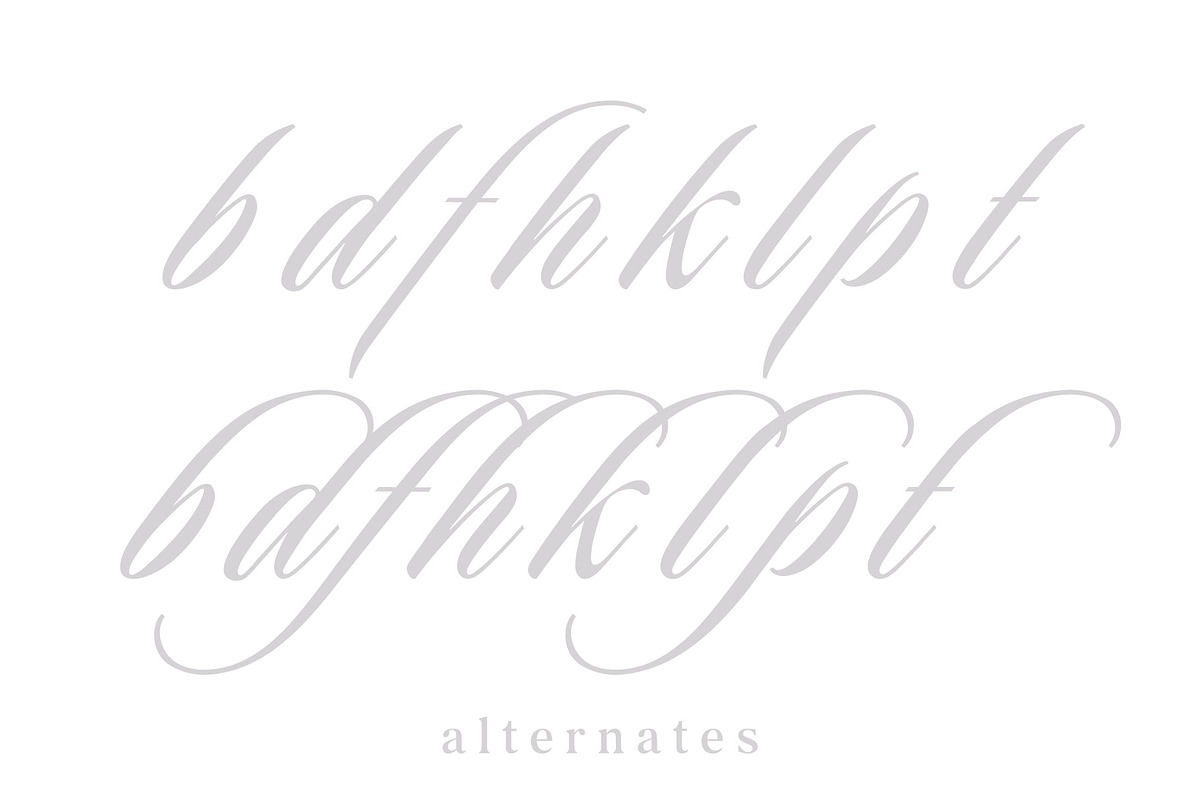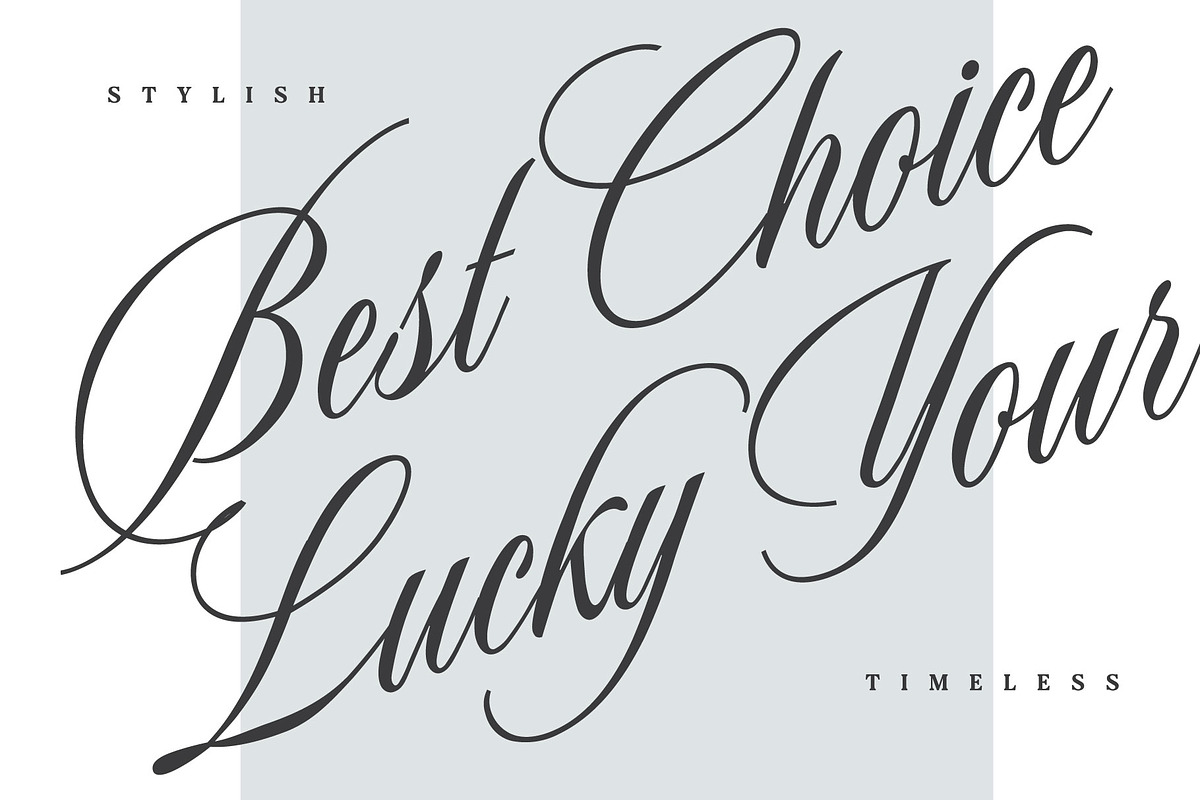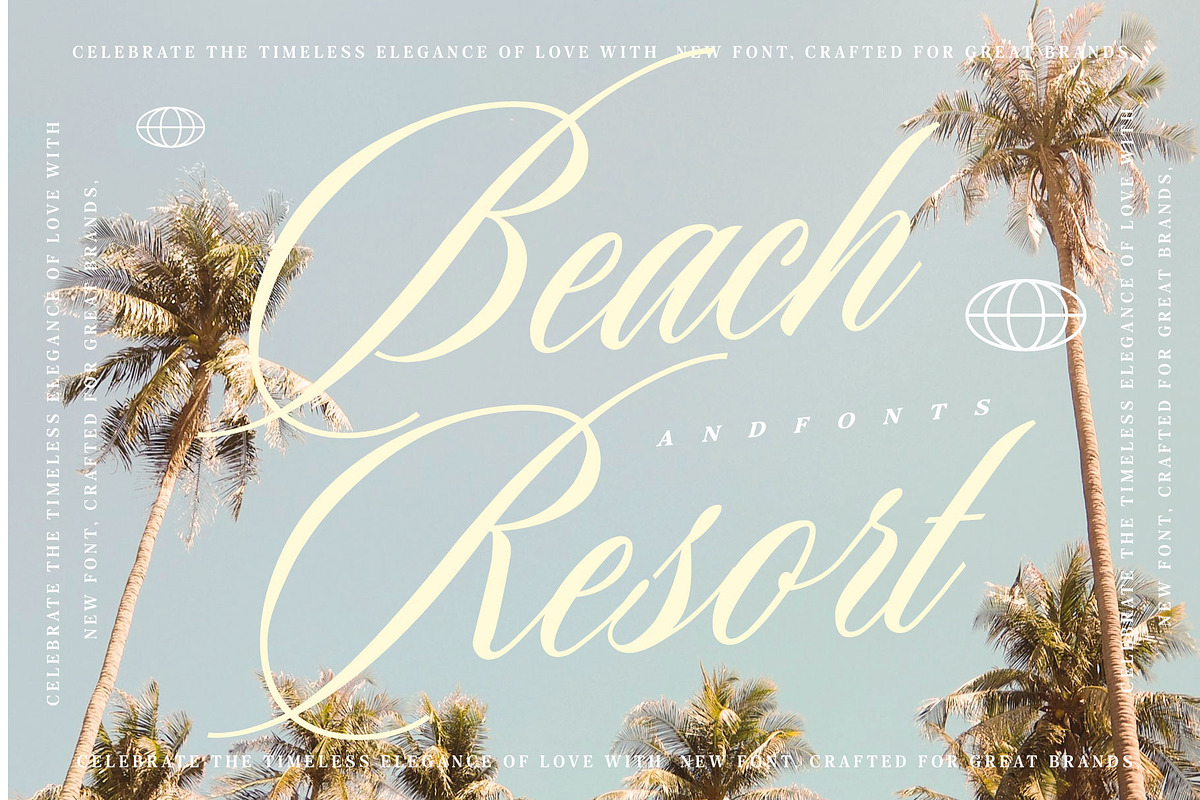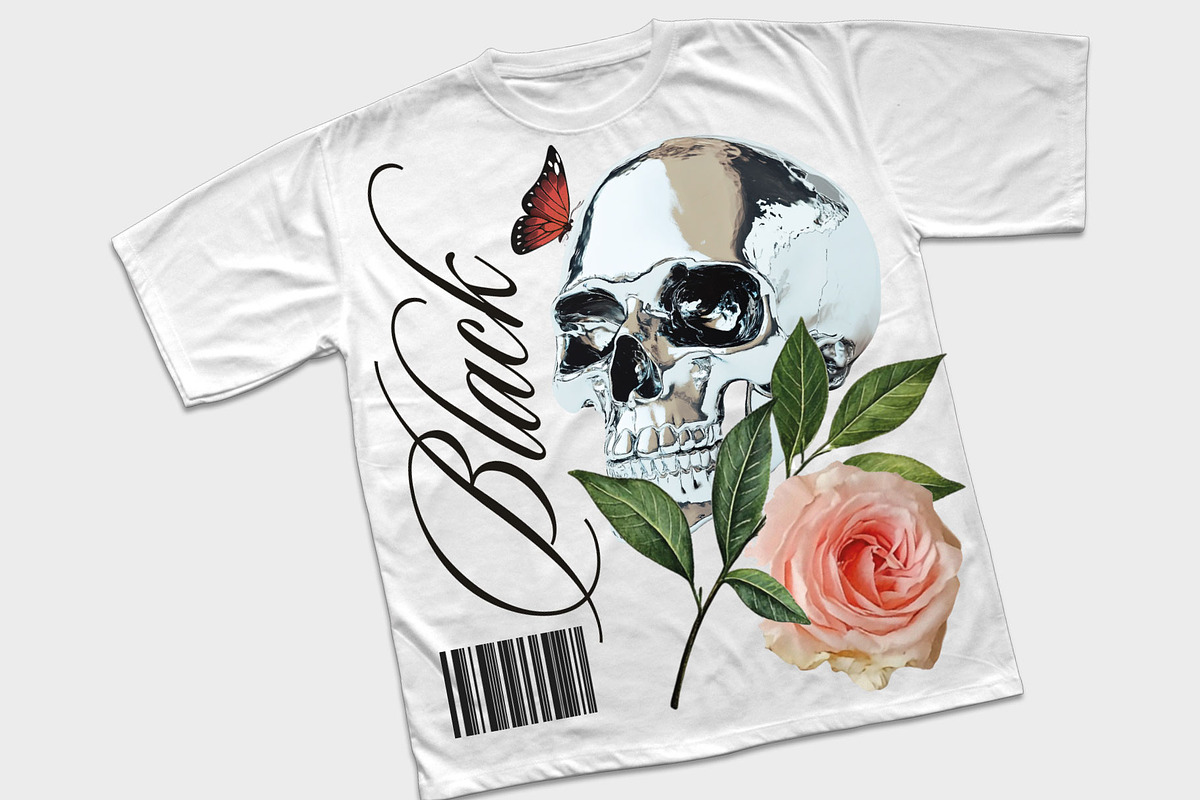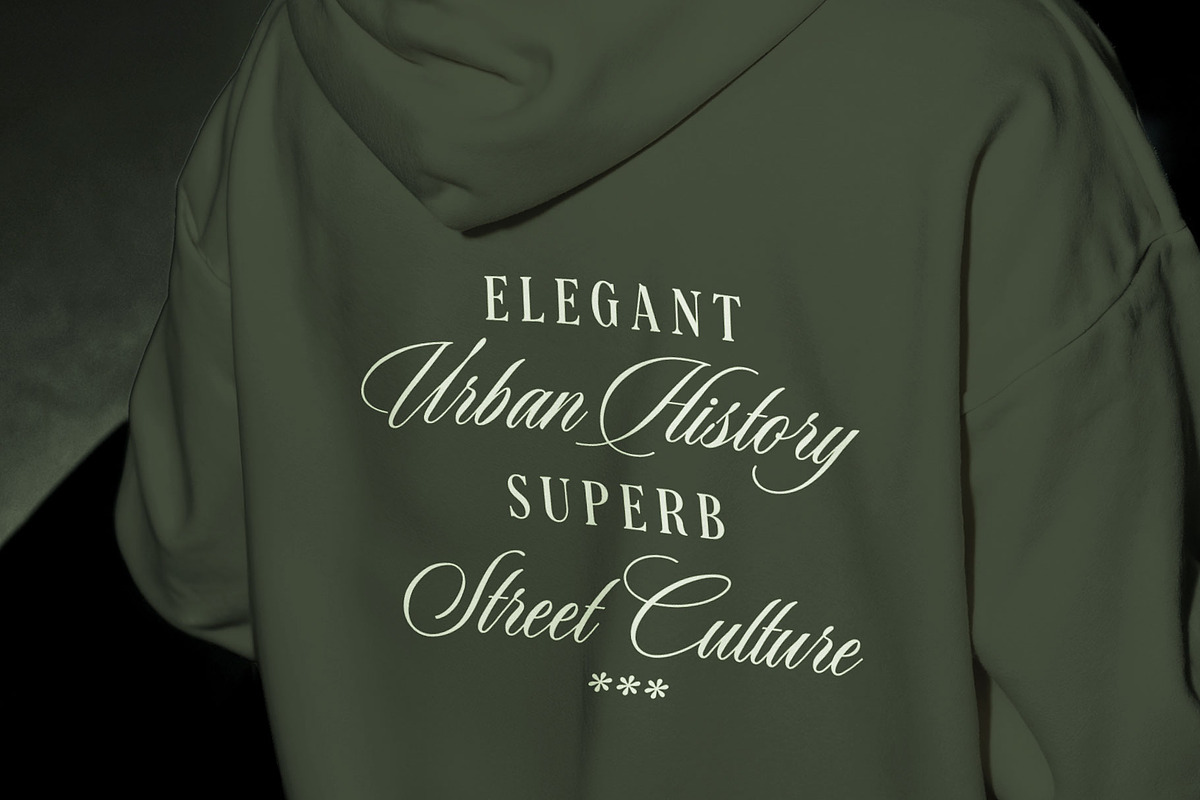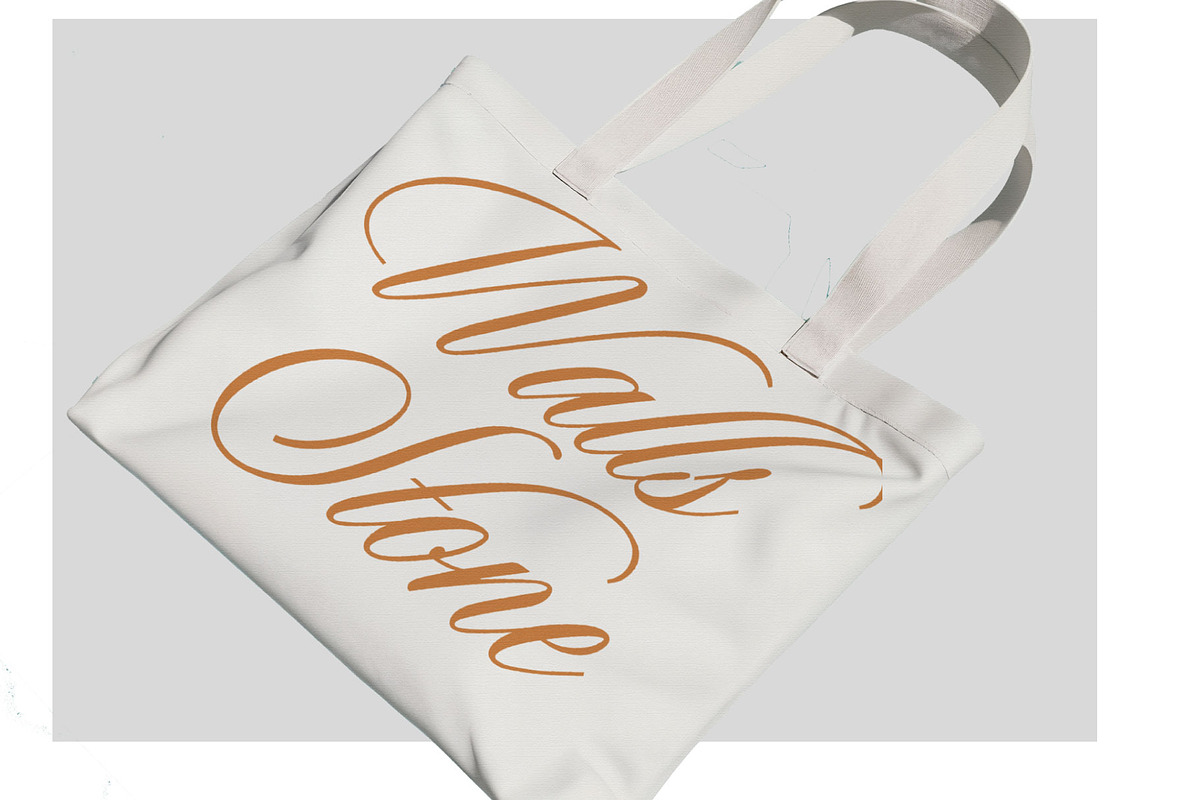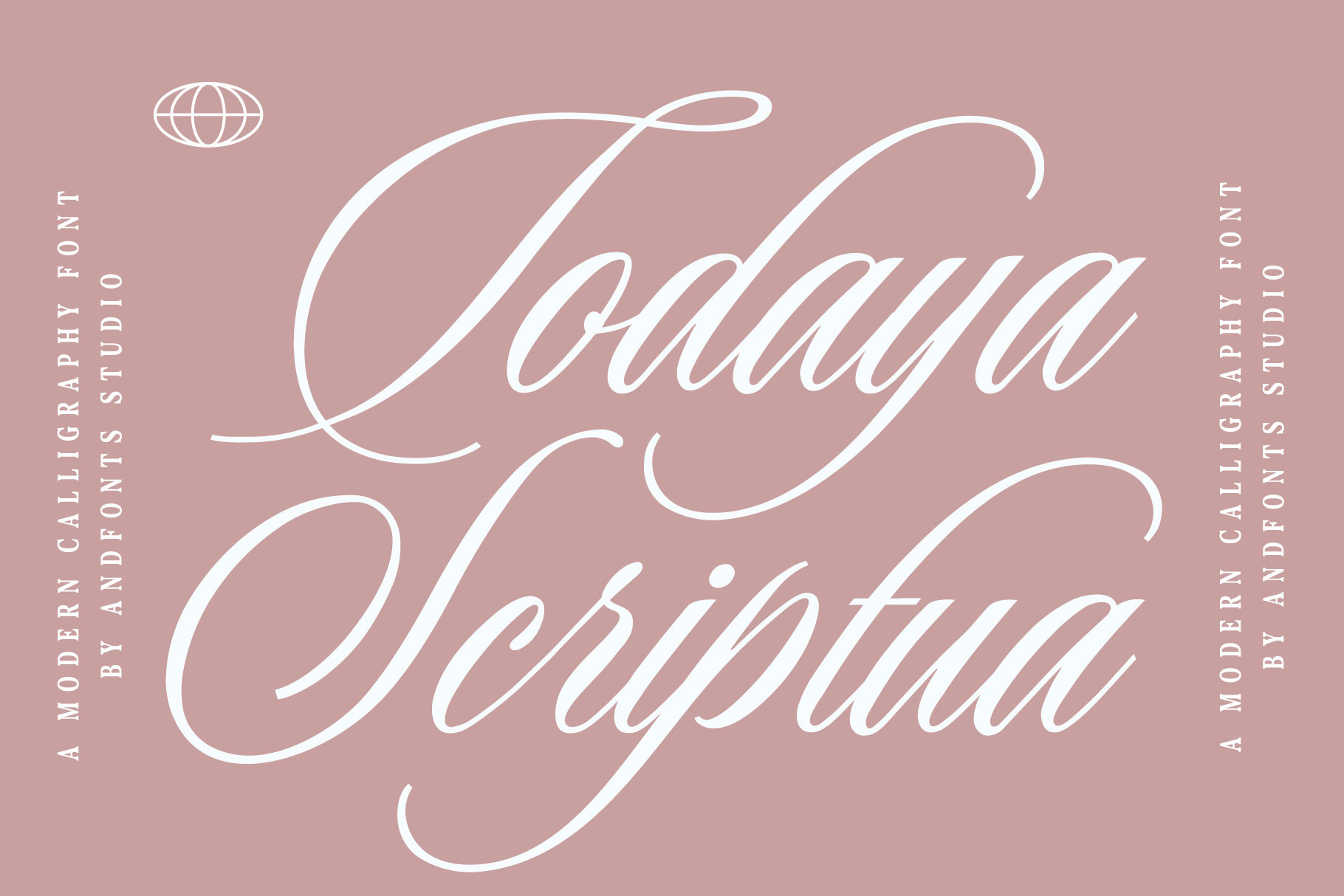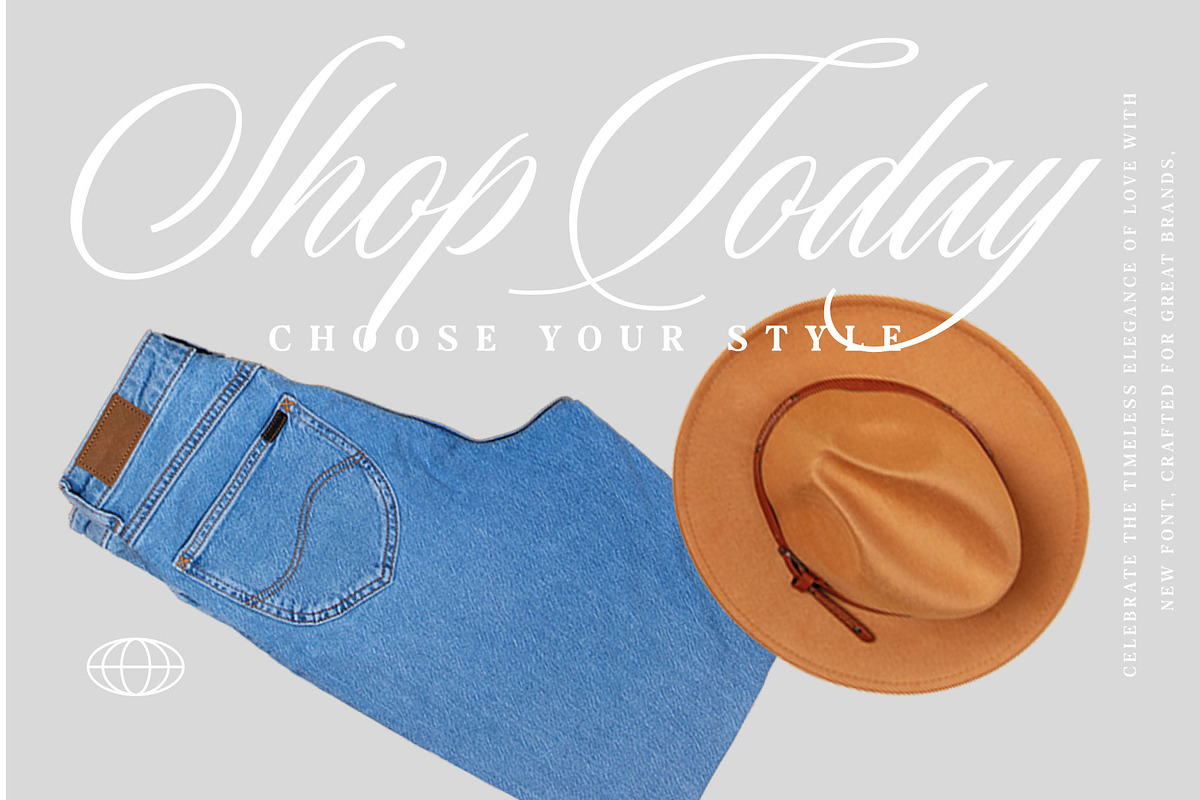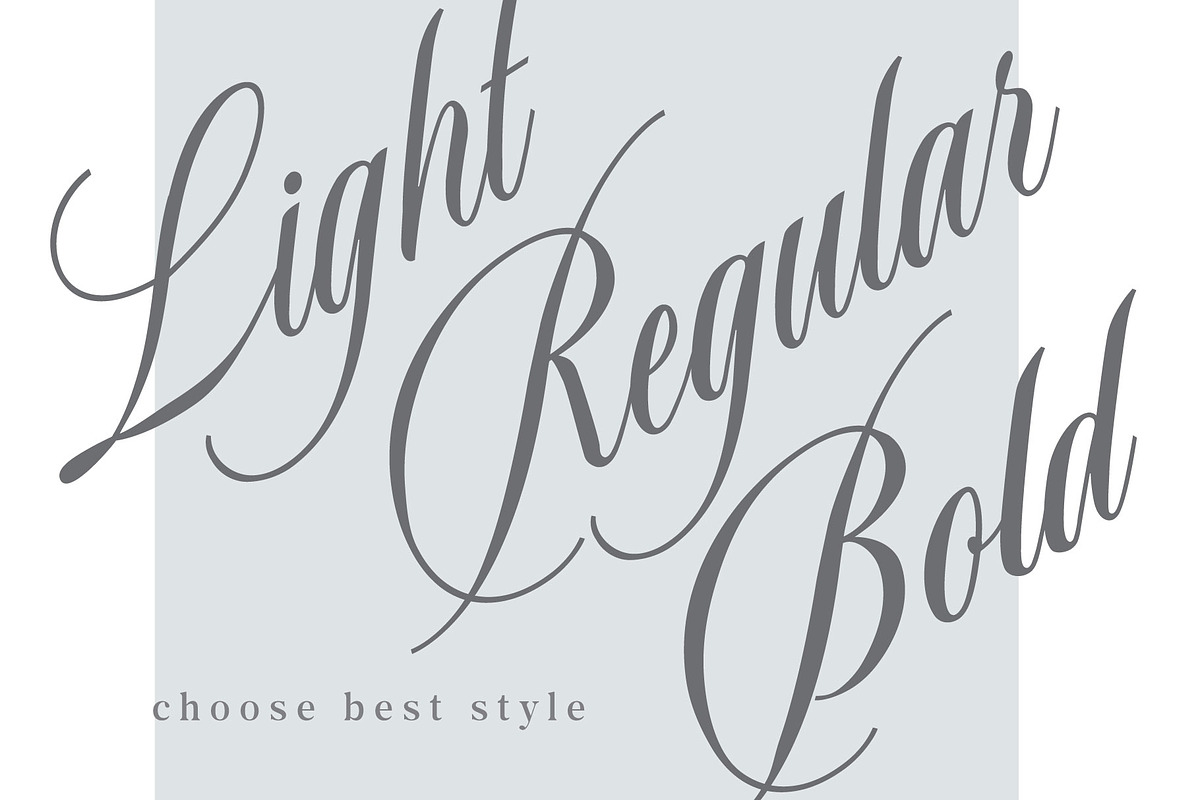
Todaya Scriptua, Calligraphy Font
Todaya Scriptua is a refined and expressive calligraphy font designed to bring elegance and charm to your creative projects. With its smooth curves, natural flow, and stylish letterforms, it perfectly captures the beauty of modern handwritten script. This font comes in three carefully crafted styles — Light, Regular, and Bold, allowing you to create stunning typography with depth and flexibility. Whether you need a delicate touch or a strong statement, Todaya Scriptua adapts effortlessly.